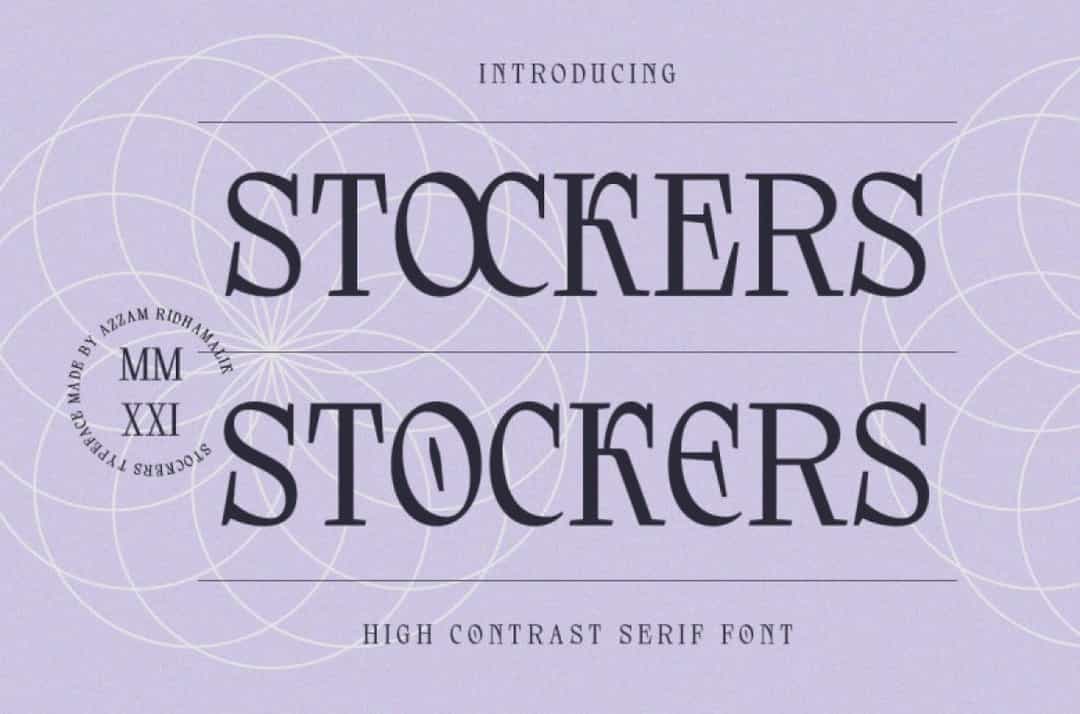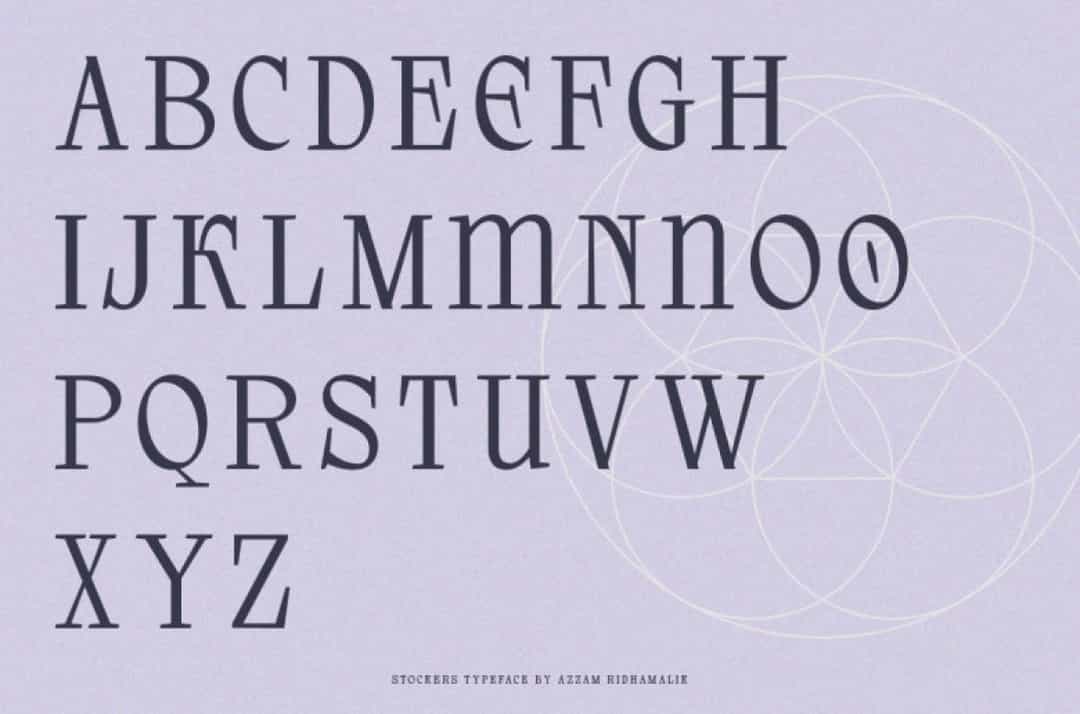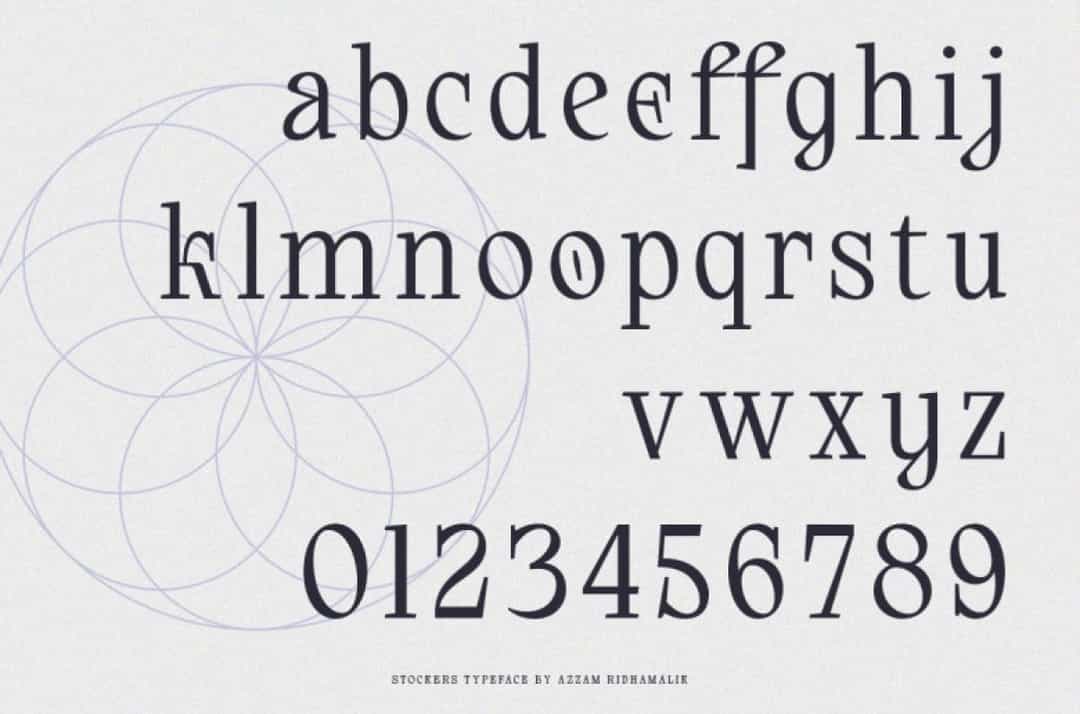
Stockers is an elegant high-contrast serif font featuring long serifs that resemble both modern and classic looks. Perfect for multilingual languages, numbers, punctuation and alternative regular and discretionary ligatures; an essential tool in modern graphic design! Add Stockers as part of any magazine layout design or other graphic project that requires elegant visuals!